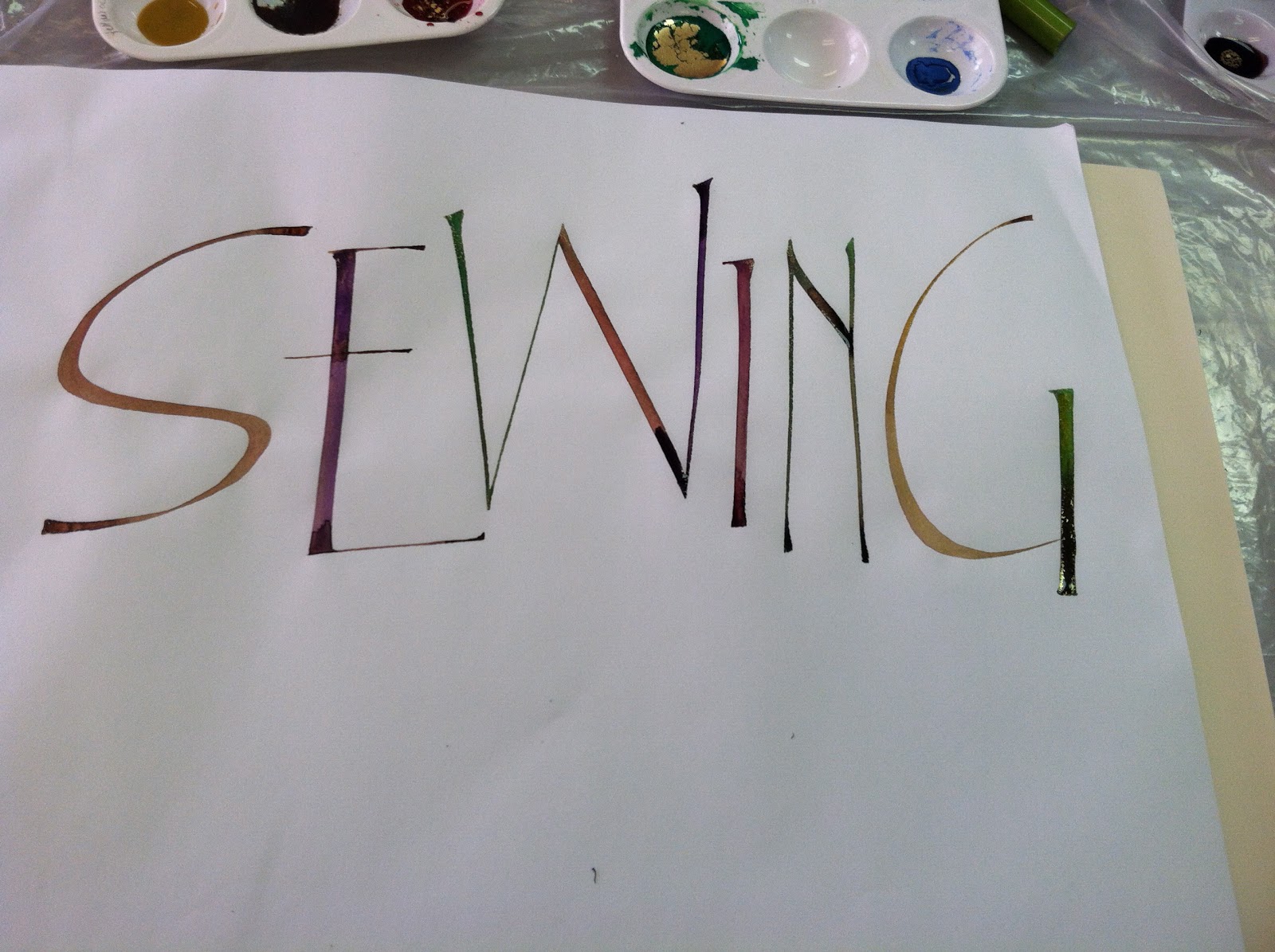
EASY GILDED INITIALS TUTORIAL!
EASY GILDED INTIALS!
The Old manuscripts featured 20 Karat gold initials called Versals-they started the verses! You can easily reproduce these stunning shiny letters.
Using bright colored or black paper sketch the outline of the initial lightly with a pencil. Then carefully fill it with a small brush and Duo Adhesive. You can get Duo Adhesive from Paper and Ink Arts, (www.paperinkarts.com) You can also use Mona Lisa Glue from Michaels but I like the Duo better. You’ll want to fill the initials with a LOT of adhesive-flood it once you do the outline.
Here’s how it looks when you apply the glue. It will be creamy white and cover the paper completely.
Now the hardest part-wait till it drys COMPLETELY CLEAR! During
the drying make sure nothing touches the glue-I always seem to forget and put another paper on top and that wrecks the surface! ( You can just reapply the adhesive if this happens)
The letters should look like this when finished drying
Now apply the gold leaf-I find La D’Ore at Michaels and art stores. It comes in many colors and variegated. It is super flimsy and light.
Carefully remove a sheet and place it on the adhesive, using your fingers to get all the nooks and crannies. Remove the excess with a foam brush
Using a soft cloth burnish the gold to a dull shine
Voila!! Gold initials ( Or silver or copper)